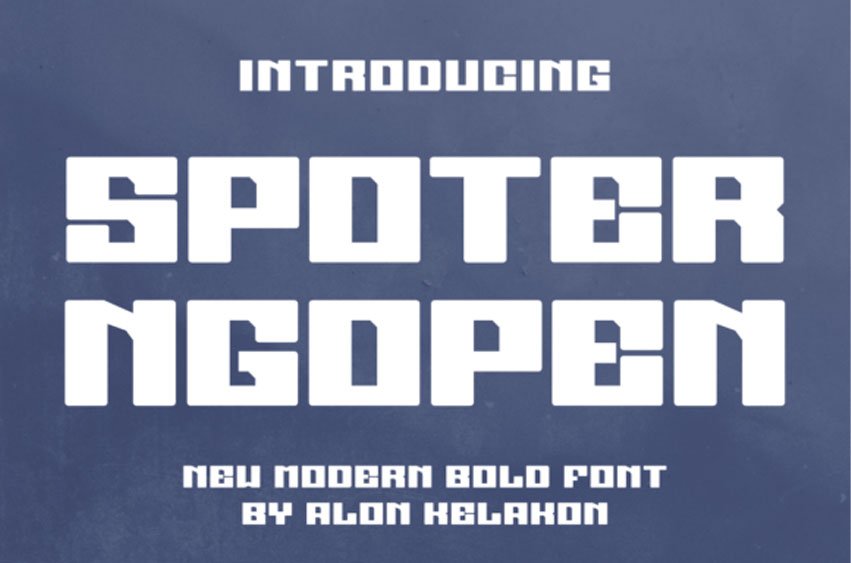
Spoter Ngopen Font
Spoter Ngopen Font is unique.
Ready to use for your design like labeling, clothing, movie sceen, poster, movie title, gigs, album covers, logos, and much more.